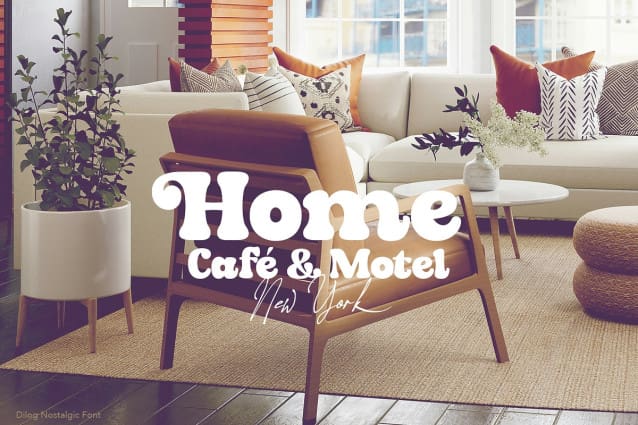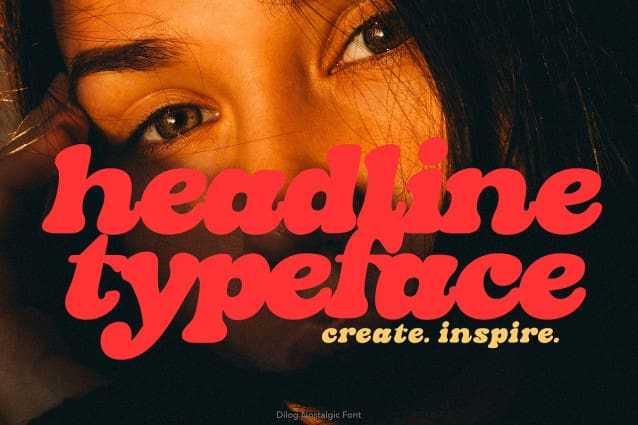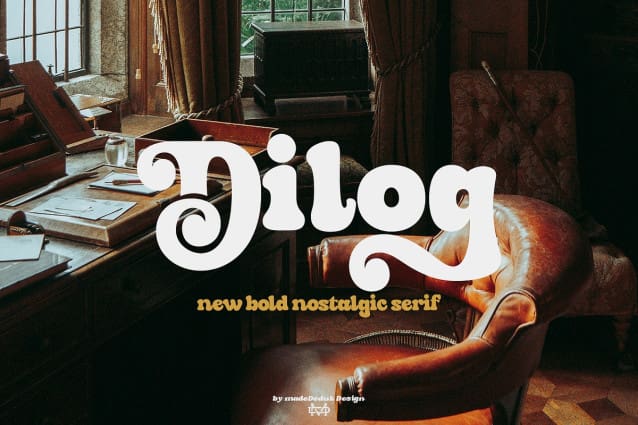
Dilog Nostalgic Font
Dilog Nostalgic Font is a bold nostalgic serif with 80’s retro style serif and refined you can explore and combine creating rhythm for comfortable reading. Come with single weight, legible and expressive shapes. A lot of stylish alternates characters and ligature will makes this font suitable for your any project design.